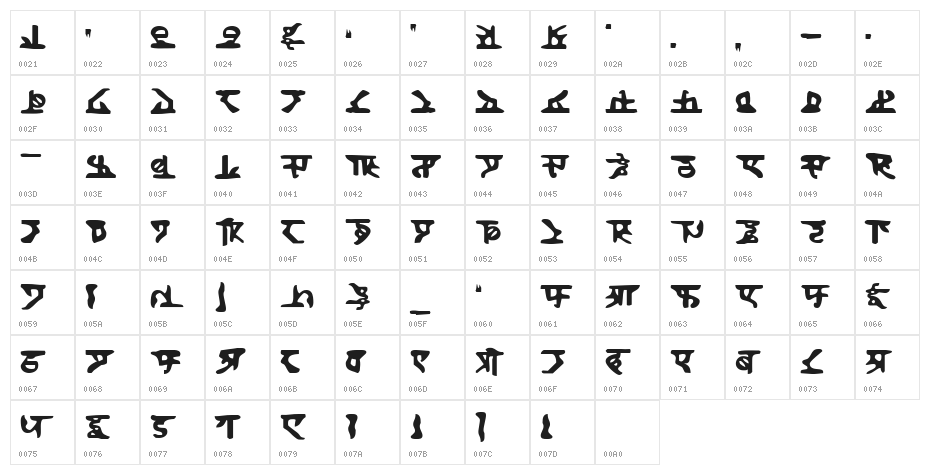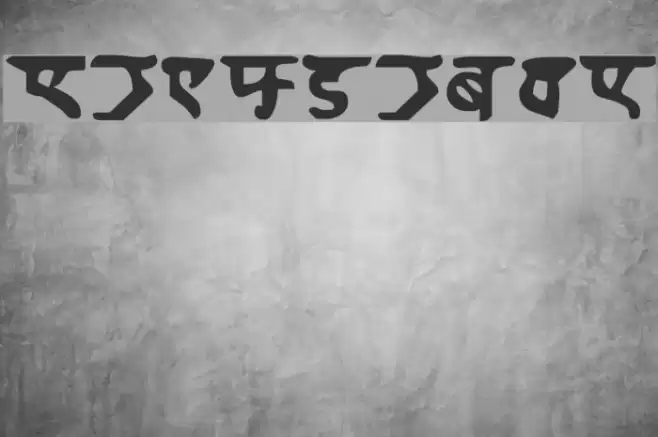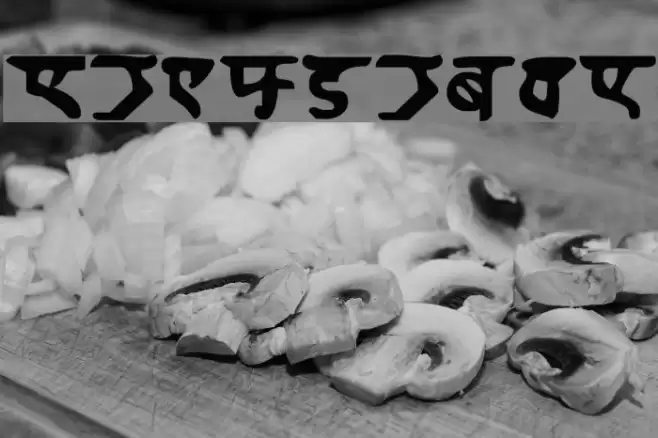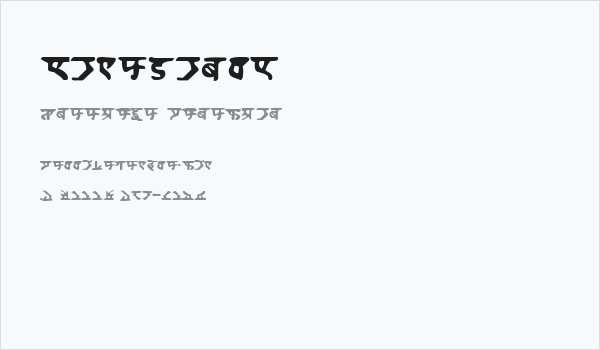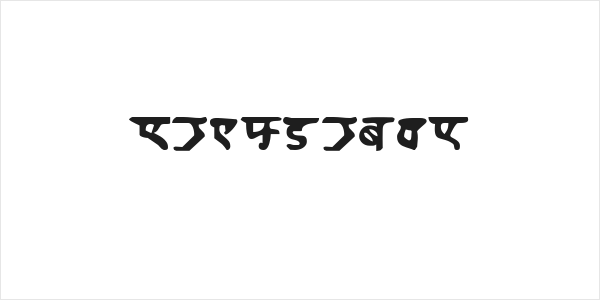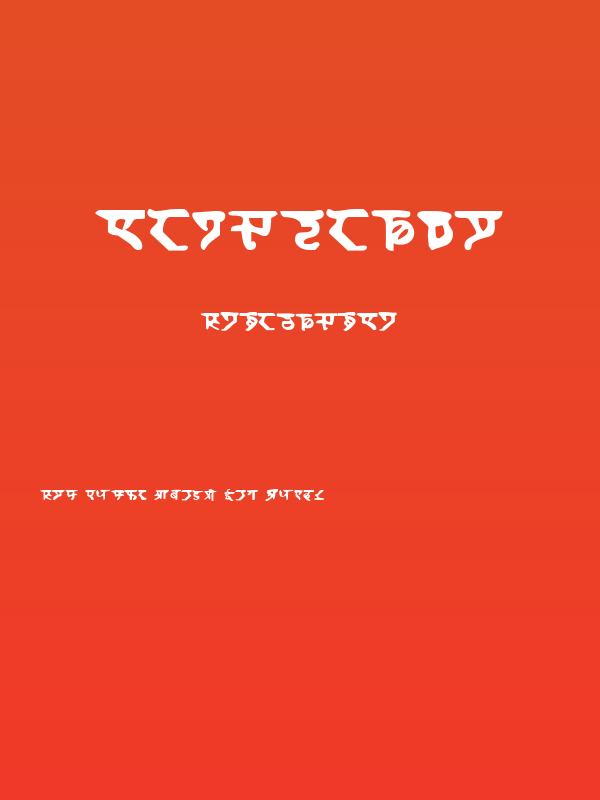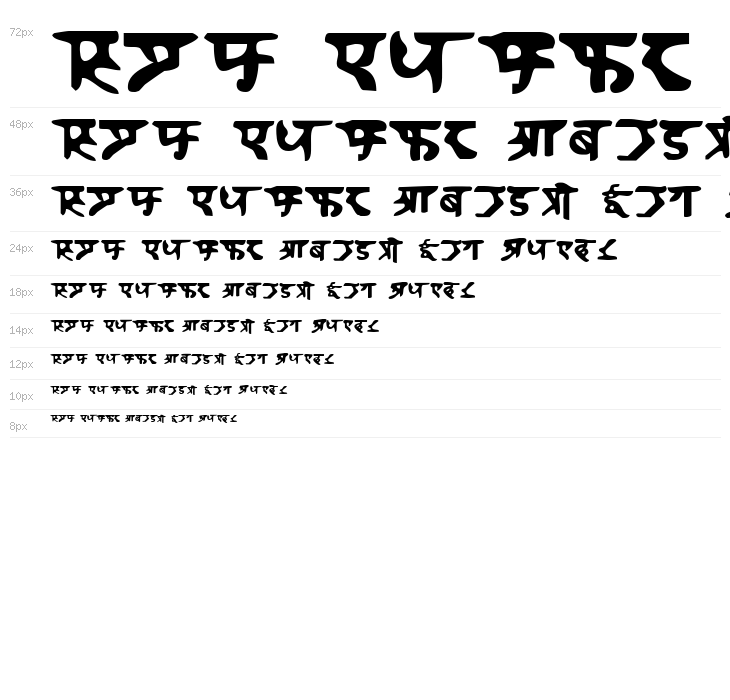
Homeworld Font
Homeworld Description
This font features a unique and abstract design, reminiscent of ancient scripts or alien languages. The characters are bold and heavily stylized, with intricate curves and sharp angles that give them a mysterious and otherworldly appearance. The strokes are thick and consistent, providing a strong visual impact. Each letter is distinct, yet they all share a cohesive style that suggests a sense of unity and purpose. The font's overall aesthetic is both enigmatic and captivating, making it suitable for projects that require a touch of the exotic or the unknown.
Use CaseLogos, Headlines
Proposed ProjectsIdeal for sci-fi themed projects, video game interfaces, movie posters, or any creative work that requires an exotic or mysterious touch.